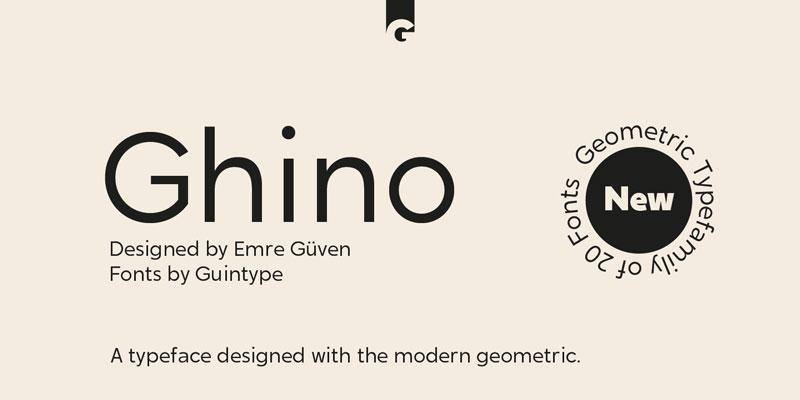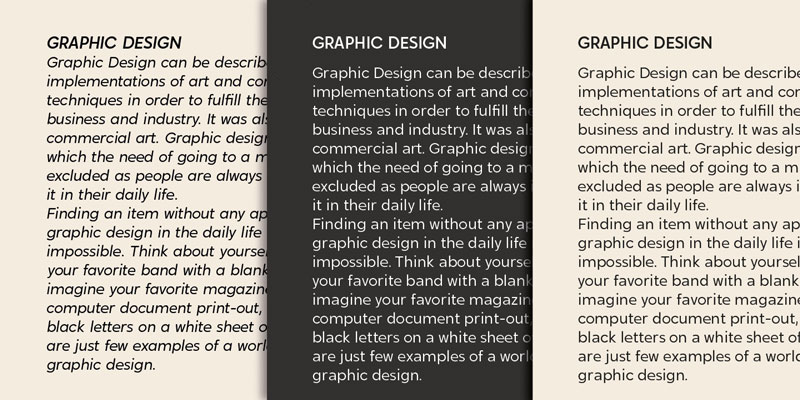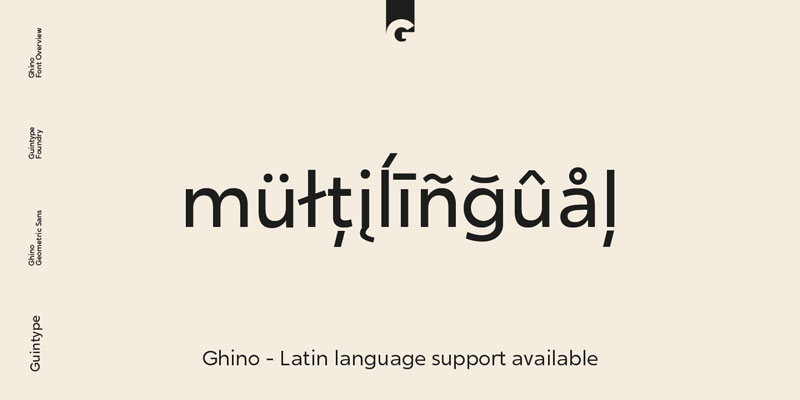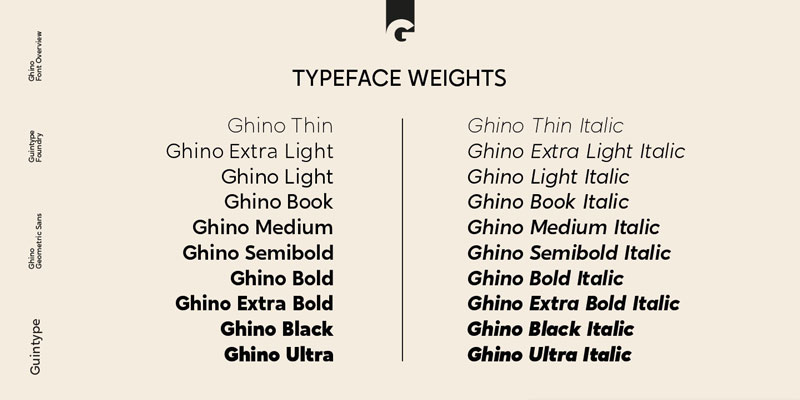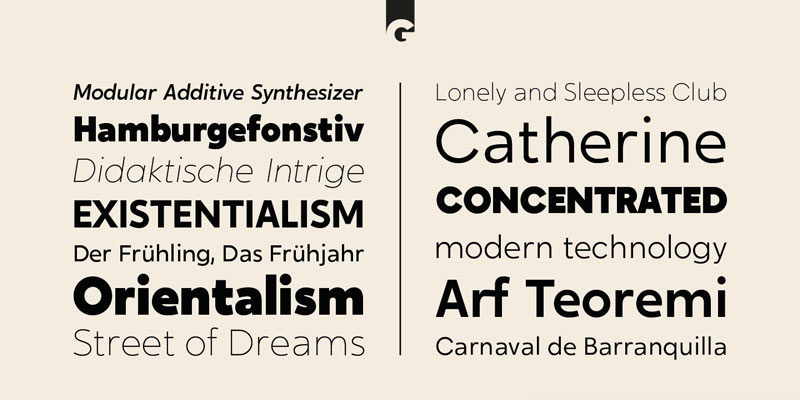
Ghino Font Complete Family
The Ghino family of “modern geometric sans” consists of 20 fonts. All the family’s fonts contain 370 glyphs and are equipped with many typographic features. Ghino Text is designed for those who prefer to use single-coded fonts not only in coding but also in many different environments of graphic design.
The idea came from creating a font with single-spaced aesthetics, without breaking the single-spaced fonts. Ghino is a geometric sans single-spaced font with all typographic features except spacing and character spacing.